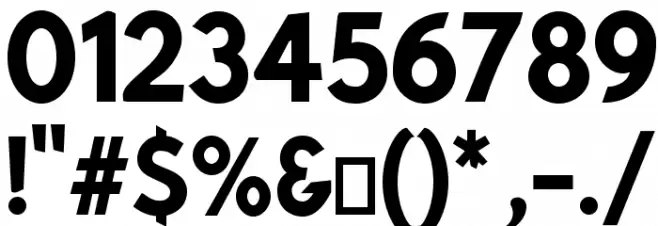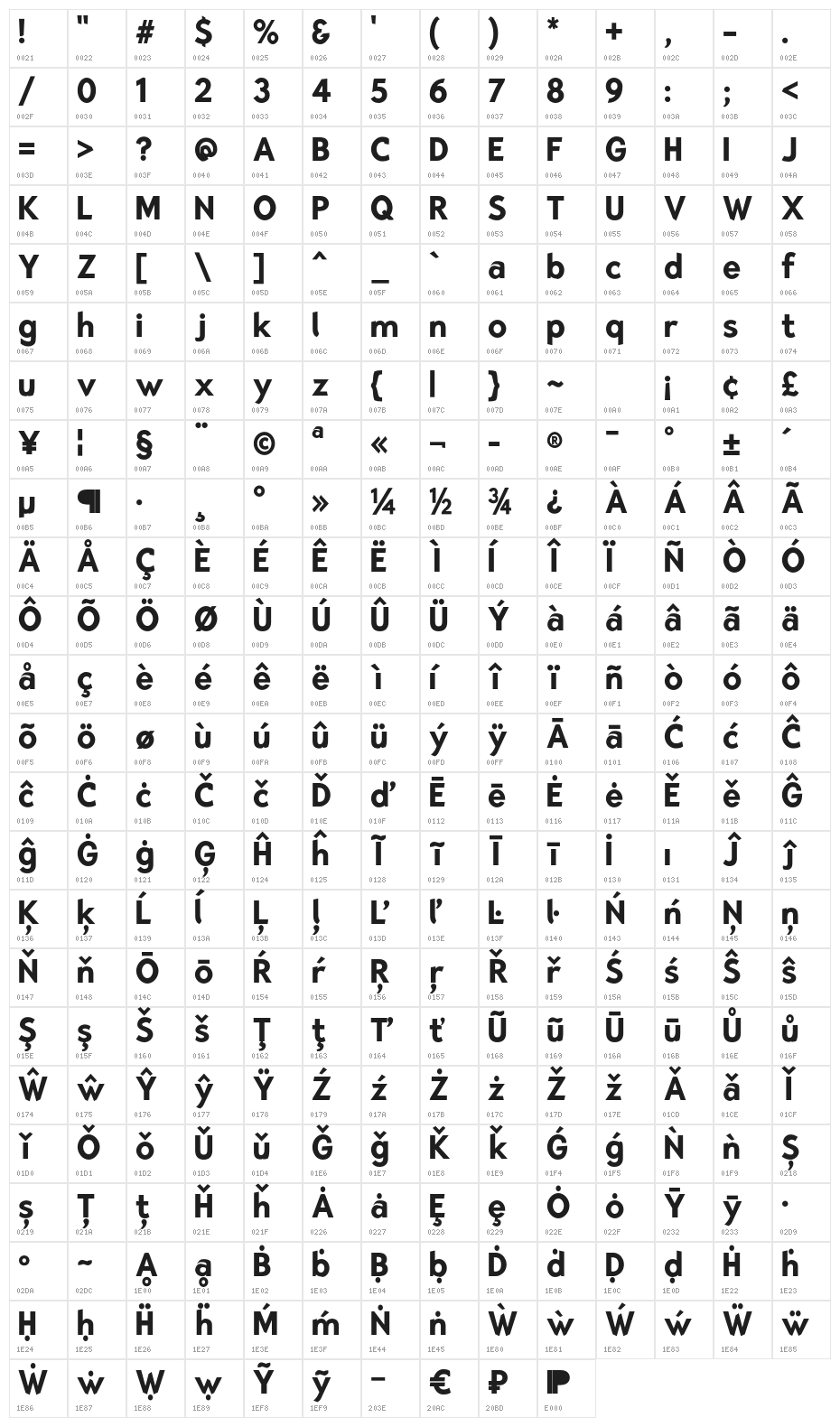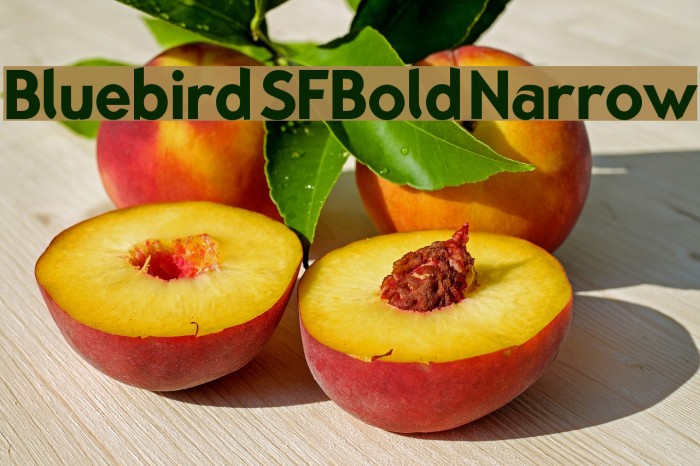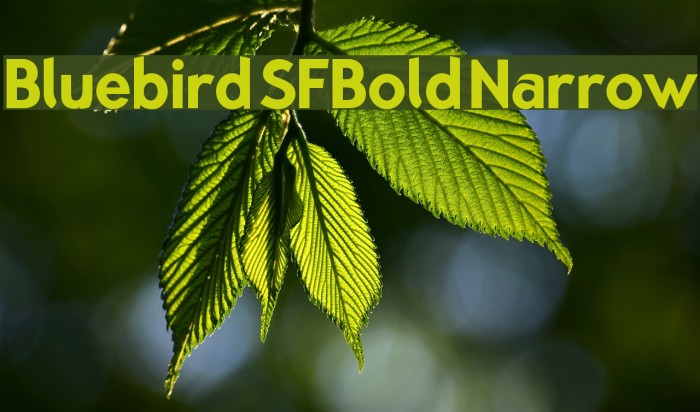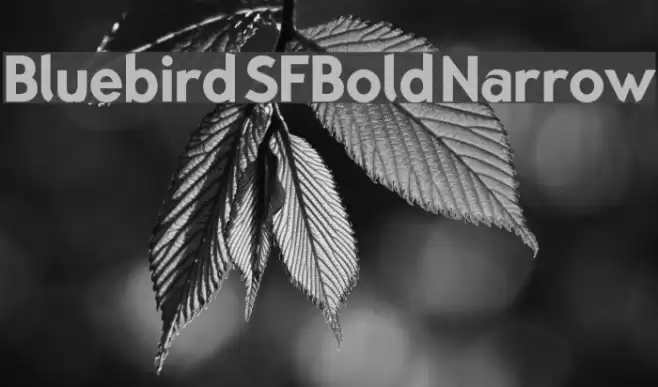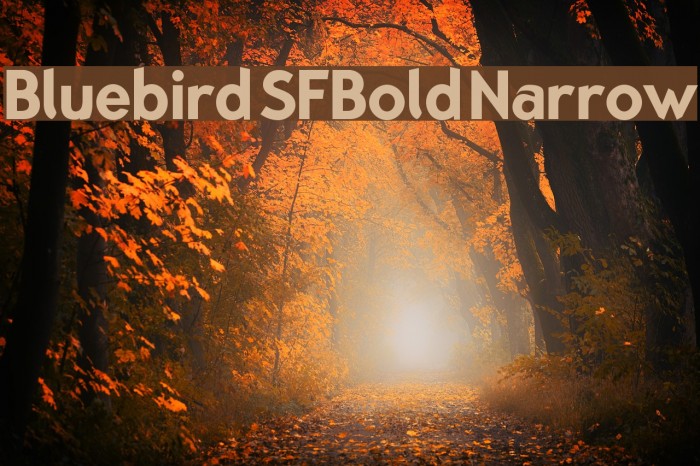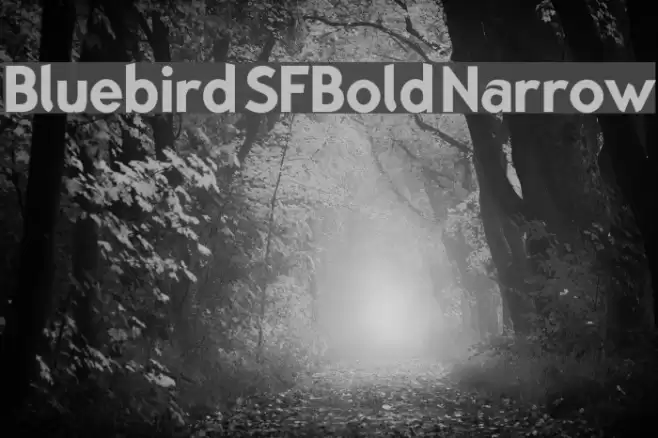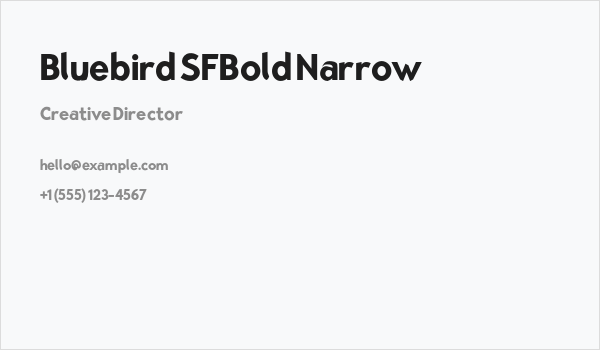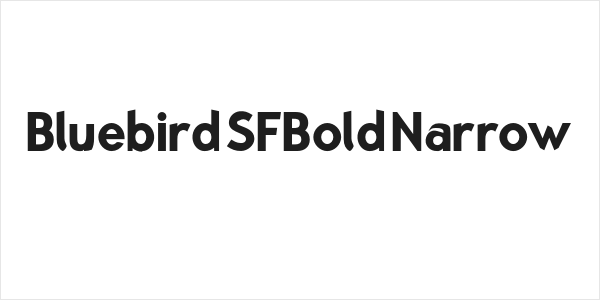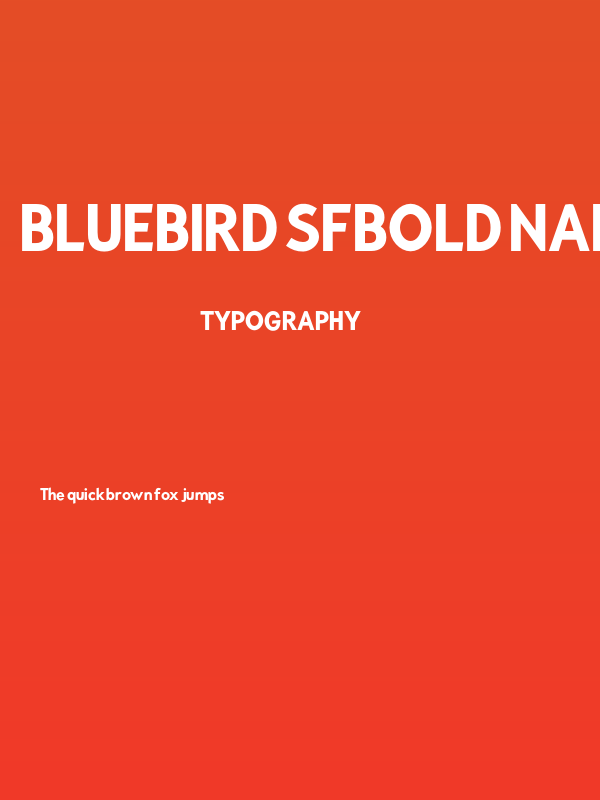
Bluebird SFBold Narrow Font
Bluebird SFBold Narrow Description
This font features a bold and narrow design, characterized by its strong and impactful presence. The uppercase letters are robust and commanding, while the lowercase letters maintain a consistent and cohesive appearance. The numerals are clear and easily distinguishable, making them suitable for various applications. The special characters are well-defined, adding versatility to the font's usage. Overall, the font's boldness and narrow width make it ideal for attention-grabbing headlines and impactful designs.
| Proposed Projects | Ideal for headlines, posters, branding, and advertising materials where a strong visual impact is needed. |